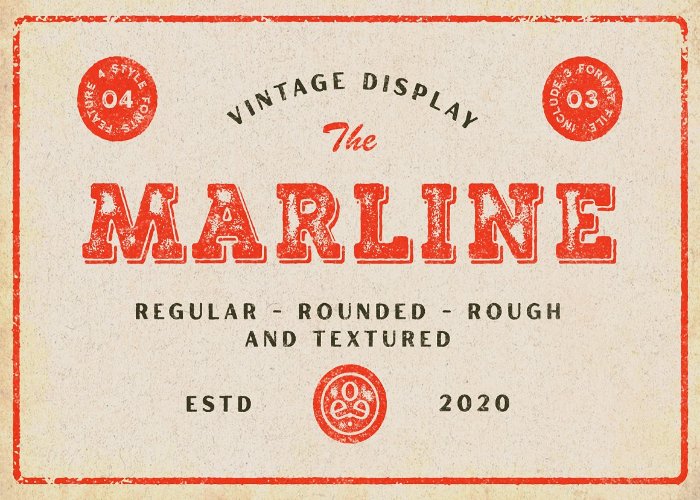
Marline — Vintage Font (Freebie)
DealFuel presents Marline, a slab-serif display font with a vintage aesthetic. Marline includes four distinct styles with unique stamp textures and full uppercase and lowercase sets — perfect for giving projects an authentic, retro feel.
Highlights
- Vintage slab-serif display font
- Four style typefaces with different stamp textures
- Uppercase and lowercase characters
- Multilingual support
- Ready-to-use for print and digital projects
Ideal for
Marline works especially well for:
- Logotypes and wordmarks
- Posters and flyers
- Labels, badges, and packaging
- Branding and stationery
- Any custom design that benefits from a vintage look
- Styles: 4 typefaces
- Language support: Multilingual